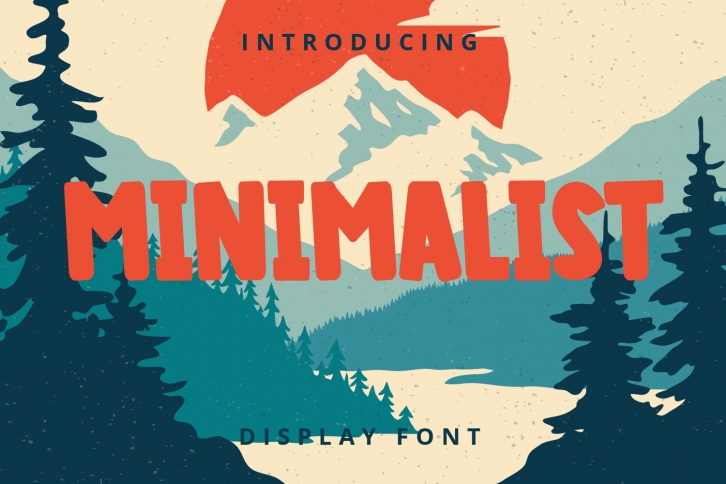
Minimalist is a cute display font. It embodies playfulness and authenticity and is the perfect choice for any children’s activity or school project. Add this chunky lettered font to your designs, and notice how it makes them come alive!